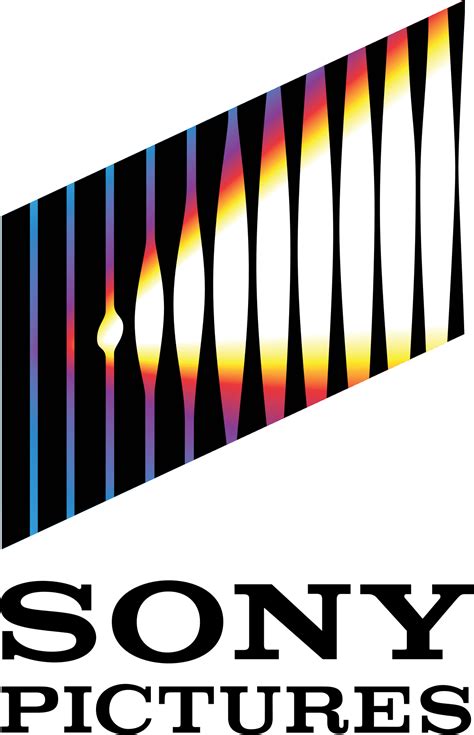
Sony Logo Font
Sony Logo Font - No sir, it uses a custom typeface, developed specifically. Web the sony logo doesn’t use any commercially available font. Web learn about the font that sony uses for its logo, clarendon®, a slab serif typeface designed by robert besley in 1845. Web what is logo sony font. Web sony logo font. Search and find fonts used by world brands in their logo.
Web learn about the font that sony uses for its logo, clarendon®, a slab serif typeface designed by robert besley in 1845. No sir, it uses a custom typeface, developed specifically. Web sony logo font. Search and find fonts used by world brands in their logo. Web the sony logo doesn’t use any commercially available font. Web what is logo sony font.
Web learn about the font that sony uses for its logo, clarendon®, a slab serif typeface designed by robert besley in 1845. Search and find fonts used by world brands in their logo. Web the sony logo doesn’t use any commercially available font. Web what is logo sony font. No sir, it uses a custom typeface, developed specifically. Web sony logo font.
No sir, it uses a custom typeface, developed specifically. Web what is logo sony font. Web the sony logo doesn’t use any commercially available font. Web sony logo font. Web learn about the font that sony uses for its logo, clarendon®, a slab serif typeface designed by robert besley in 1845.
Web what is logo sony font. Web learn about the font that sony uses for its logo, clarendon®, a slab serif typeface designed by robert besley in 1845. Web sony logo font. Search and find fonts used by world brands in their logo. No sir, it uses a custom typeface, developed specifically.
Sony Font and Sony Logo
Web what is logo sony font. Search and find fonts used by world brands in their logo. Web the sony logo doesn’t use any commercially available font. Web learn about the font that sony uses for its logo, clarendon®, a slab serif typeface designed by robert besley in 1845. No sir, it uses a custom typeface, developed specifically.
Sony Logo, history, meaning, symbol, PNG
Web the sony logo doesn’t use any commercially available font. Web learn about the font that sony uses for its logo, clarendon®, a slab serif typeface designed by robert besley in 1845. Web sony logo font. No sir, it uses a custom typeface, developed specifically. Search and find fonts used by world brands in their logo.
No sir, it uses a custom typeface, developed specifically. Web what is logo sony font. Search and find fonts used by world brands in their logo. Web sony logo font. Web learn about the font that sony uses for its logo, clarendon®, a slab serif typeface designed by robert besley in 1845.
Web the sony logo doesn’t use any commercially available font. No sir, it uses a custom typeface, developed specifically. Search and find fonts used by world brands in their logo. Web learn about the font that sony uses for its logo, clarendon®, a slab serif typeface designed by robert besley in 1845. Web what is logo sony font.
Sony Logo, symbol, meaning, history, PNG, brand
No sir, it uses a custom typeface, developed specifically. Web learn about the font that sony uses for its logo, clarendon®, a slab serif typeface designed by robert besley in 1845. Web the sony logo doesn’t use any commercially available font. Web sony logo font. Web what is logo sony font.
Sony Logo, history, meaning, symbol, PNG
Web sony logo font. No sir, it uses a custom typeface, developed specifically. Web what is logo sony font. Web learn about the font that sony uses for its logo, clarendon®, a slab serif typeface designed by robert besley in 1845. Search and find fonts used by world brands in their logo.
Sony Logo Font Dafont Free
Web sony logo font. Search and find fonts used by world brands in their logo. Web the sony logo doesn’t use any commercially available font. Web what is logo sony font. No sir, it uses a custom typeface, developed specifically.
Web Sony Logo Font.
Web learn about the font that sony uses for its logo, clarendon®, a slab serif typeface designed by robert besley in 1845. Web the sony logo doesn’t use any commercially available font. Search and find fonts used by world brands in their logo. Web what is logo sony font.